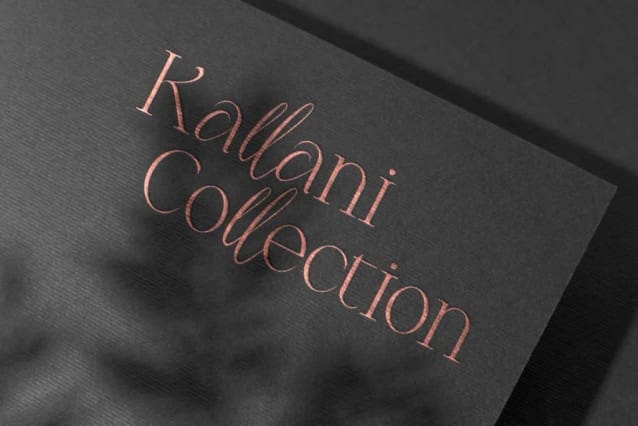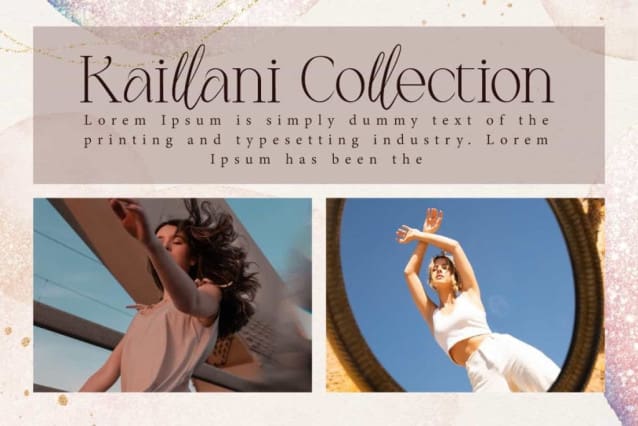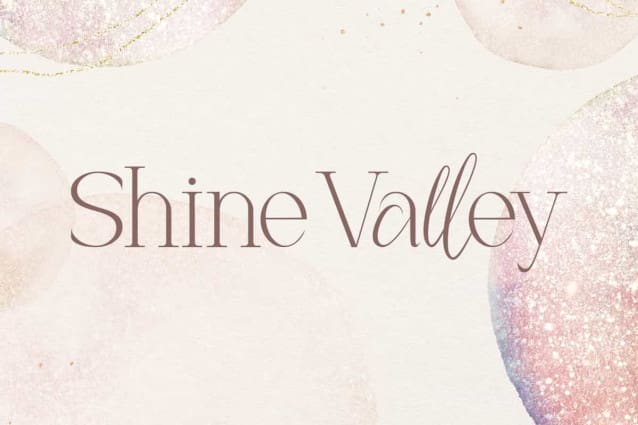
Shine Valley Font
Shine Valley Font is an enchanting, elegance and classy display font with combination of two mutual styles. This font has a luxurious and feminine energy to support your design to look even more stunning. It will suits many designs, such as brand image, custom design, gift box, invitation, label, magazine cover, poster, product packaging, quote, signage, stationery, website page, and more!
Shine Valley Font includes full set of Uppercase and Lowercase Basic Characters, Numerals, Punctuation and Symbol. This font is also include Ligature script characters and will be suitable for many industries, such as advertising, beauty product, event or wedding organizer, fashion, furniture, jewelry and accessories, photography, resort, restaurant, etc.